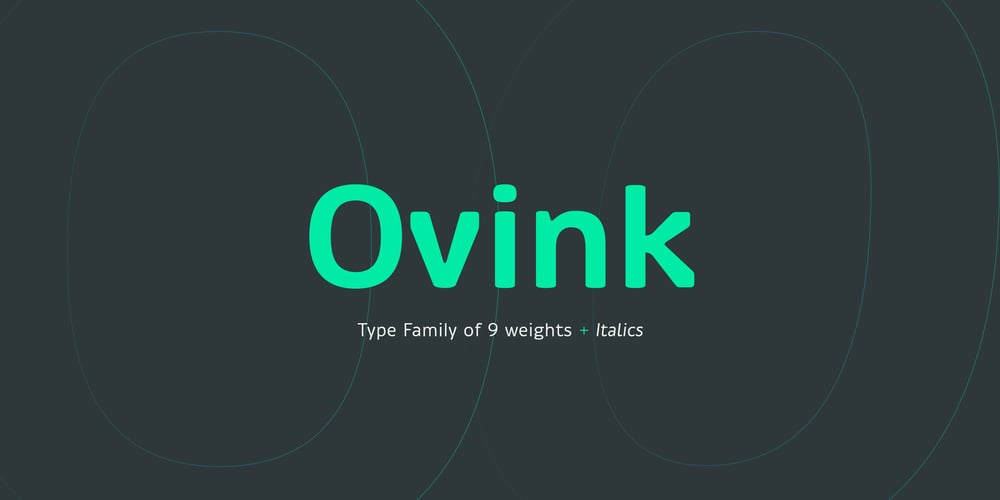
Ovink Font Family was designed by Sofie Beier and published by The Northern Block. Ovink contains 18 styles and family package options. Ovink is a rounded type family designed for great distance legibility. Named after the legibility researcher Gerrit Willem Ovink, in its early stages was subjected to experimental legibilty investigations of distance and time threshold methods. The results of this heavily influence the design. The high regularity of the letters also makes the typeface suitable for running text and the wide span of weights motivates a broad usage for the setting of both display and text. Ovink is also loosely inspired by Knud V. Engelhardt’s work for the street signage, designed around the years 1926-27 for Gentofte in Denmark. Being rooted in the Danish typography tradition, Ovink has a sturdy unpretentious look to it, yet compared to its predecessor the curves are tighter, and characters have a higher level of differentiation. Details include 9 weights with matching italics.